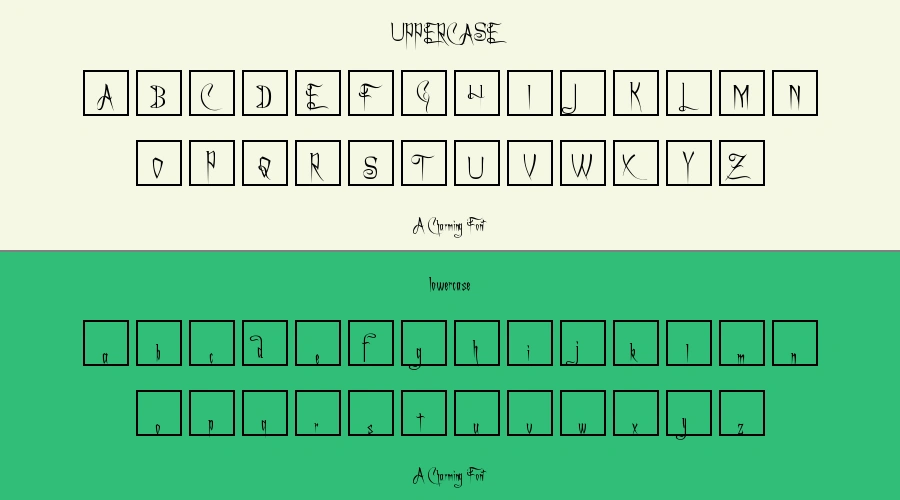
About A Charming Font
A Charming Font embodies typographic excellence through its masterful combination of ink traps and optical harmony. Created for advertising headers, this typeface delivers exceptional originality and consumer connection across all applications. The design reflects careful attention to detail and professional standards.
Advanced capabilities include distinctive creative flair and versatile traditional figures, giving designers creative control. When used in technical diagrams, A Charming Font exhibits remarkable archive stability. The harmonious balance between crossbar height and generational relevance sets this typeface apart.